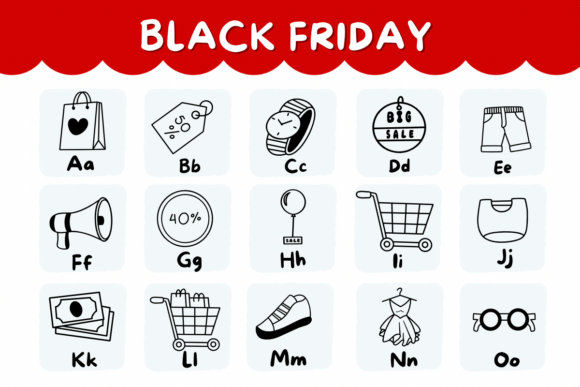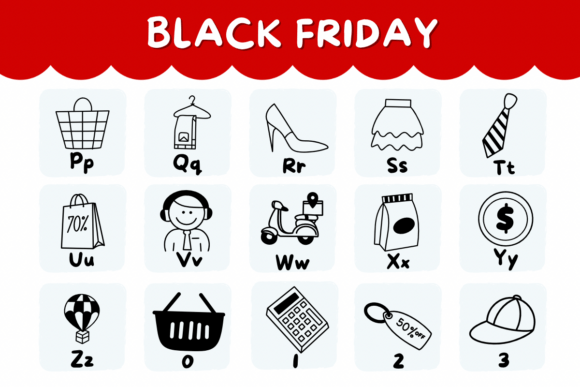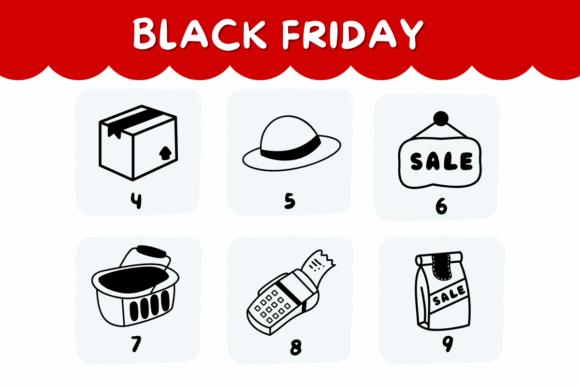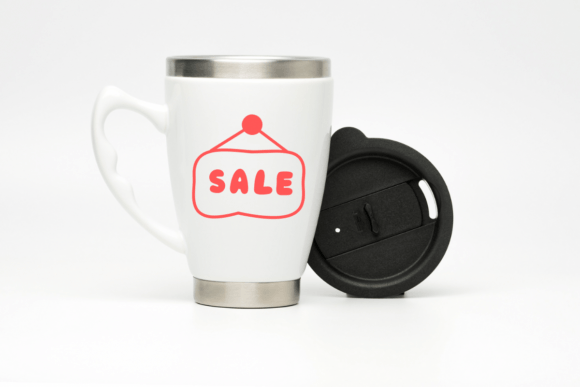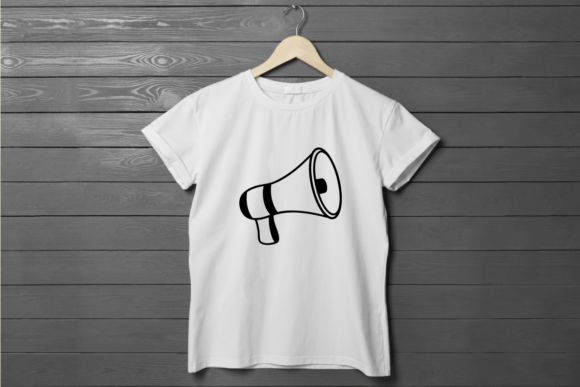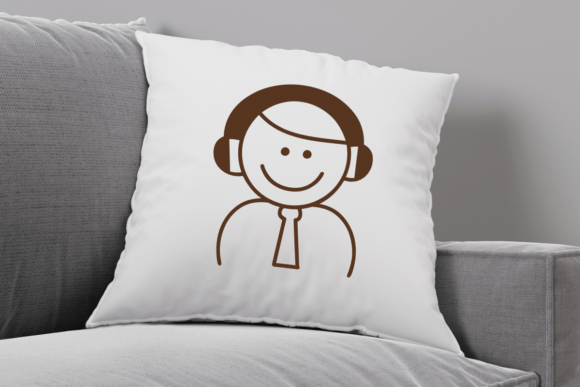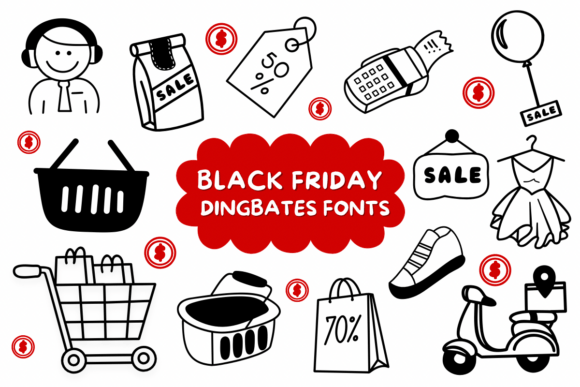
Unlock the Spirit of Black Friday with the Perfect Font
Black Friday, the ultimate shopping extravaganza, is just around the corner. Held on the day after Thanksgiving, this major shopping event offers incredible discounts and sales that attract millions of shoppers. As a designer or crafter, you might be looking for a unique way to capture the essence of Black Friday in your designs. That’s where a Black Friday dingbat font comes in – a fantastic tool to add a touch of festivity and excitement to your creations.
What is a Black Friday Dingbat Font?
A Black Friday dingbat font is a special type of font that features small images, or glyphs, instead of traditional characters. These glyphs are carefully crafted to represent the spirit of Black Friday, including shopping bags, sale tags, dollar signs, gift boxes, and excited shoppers. By incorporating these symbols into your designs, you can instantly convey the theme of Black Friday and create eye-catching visuals that grab attention.
The Benefits of Using a Black Friday Dingbat Font
So, why should you choose a Black Friday dingbat font for your designs? Here are just a few benefits:
• Unique and eye-catching designs: A Black Friday dingbat font allows you to create distinctive designs that stand out from the crowd. With a wide range of glyphs at your disposal, you can experiment with different combinations to achieve a look that’s truly one-of-a-kind.
• Versatile: A Black Friday dingbat font can be used in a variety of design projects, from social media graphics and flyers to posters and website headers.
• Time-saving: With a dingbat font, you can create professional-looking designs in a fraction of the time it would take to design from scratch.
What to Look for in a Black Friday Dingbat Font
When searching for a Black Friday dingbat font, there are a few things to keep in mind:
• Quality of glyphs: Look for a font with high-quality glyphs that are crisp and clear. You want your designs to look professional, not pixelated or blurry.
• Variety of glyphs: A good Black Friday dingbat font should include a wide range of glyphs, from basic shopping icons to more elaborate designs.
Ideas for Using a Black Friday Dingbat Font
Now that you have a Black Friday dingbat font, what can you create with it? Here are a few ideas to get you started:
• Social media graphics: Create eye-catching social media graphics that announce your Black Friday sales or promotions.
• Flyers and brochures: Design flyers and brochures that showcase your Black Friday deals and discounts.
• Posters and banners: Create bold posters and banners that grab attention and drive traffic to your store or website.
• Website headers: Add a touch of festivity to your website with a Black Friday-themed header that incorporates your dingbat font.
Font Name Black Friday Font
Author Natchuta
A Black Friday dingbat font is a powerful tool for designers and crafters looking to capture the spirit of this major shopping event. With its unique glyphs and ease of use, a Black Friday dingbat font can help you create eye-catching designs that drive engagement and sales. Whether you’re designing social media graphics, flyers, posters, or website headers, a Black Friday dingbat font is the perfect way to add a touch of festivity and excitement to your creations.